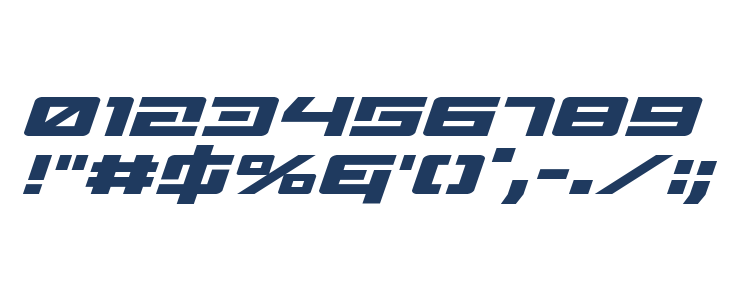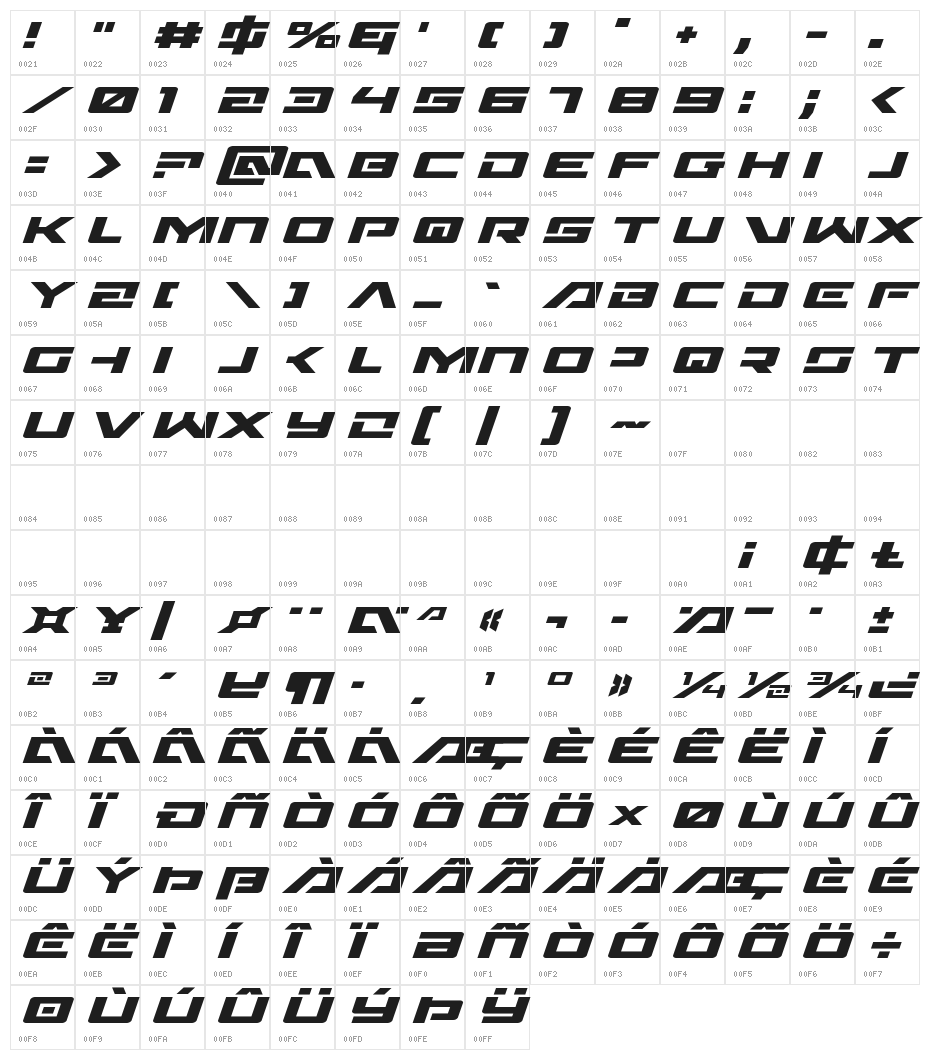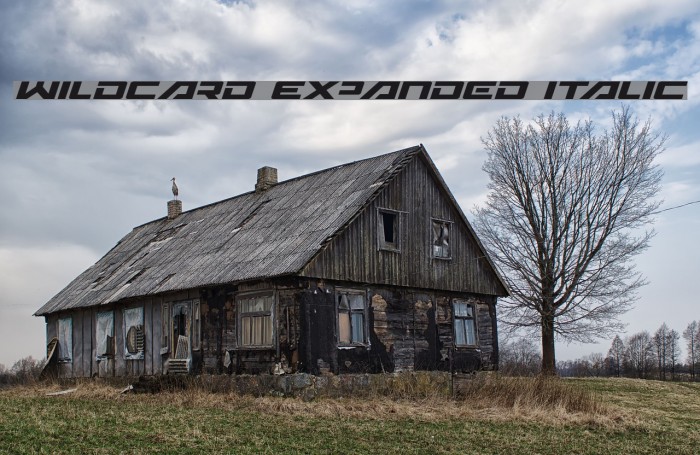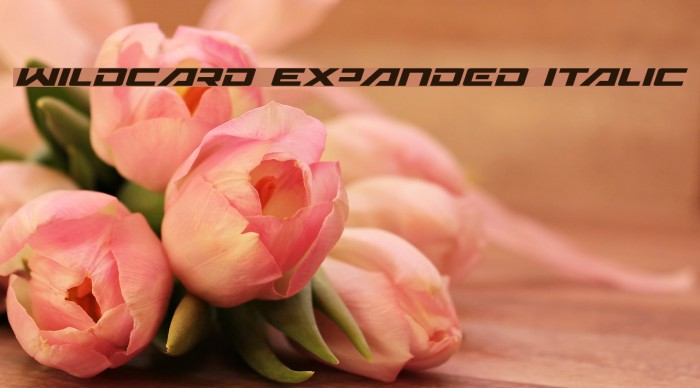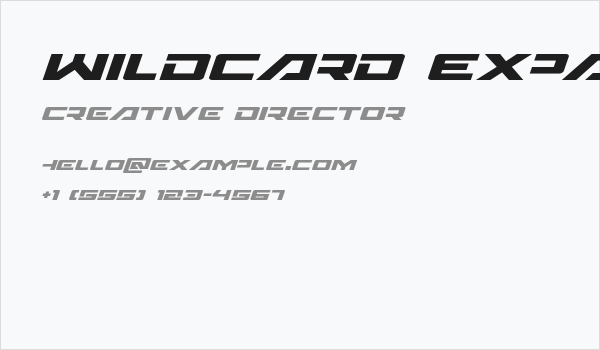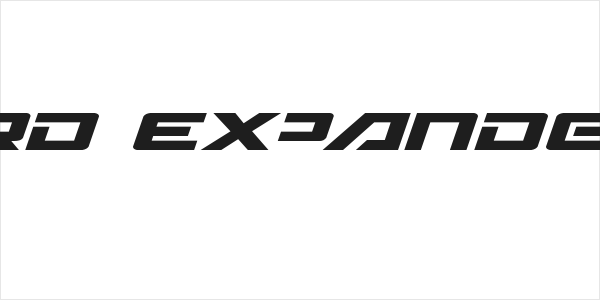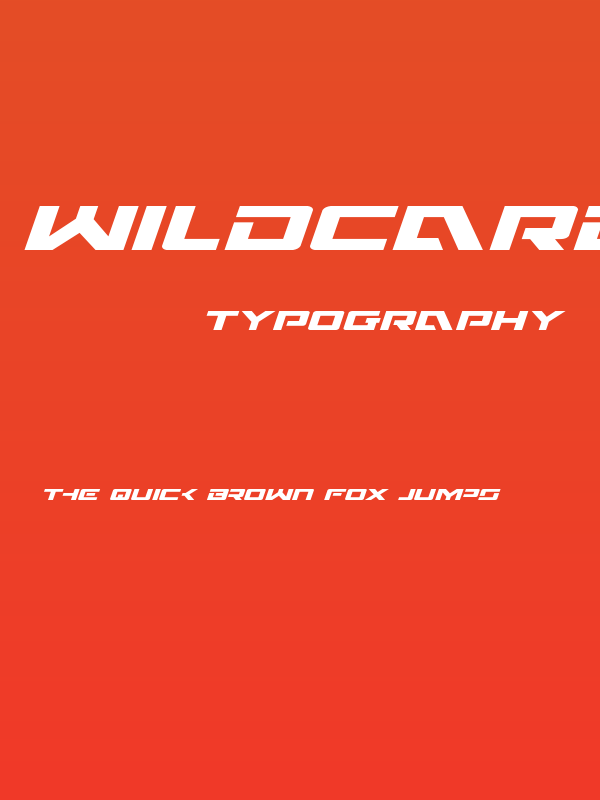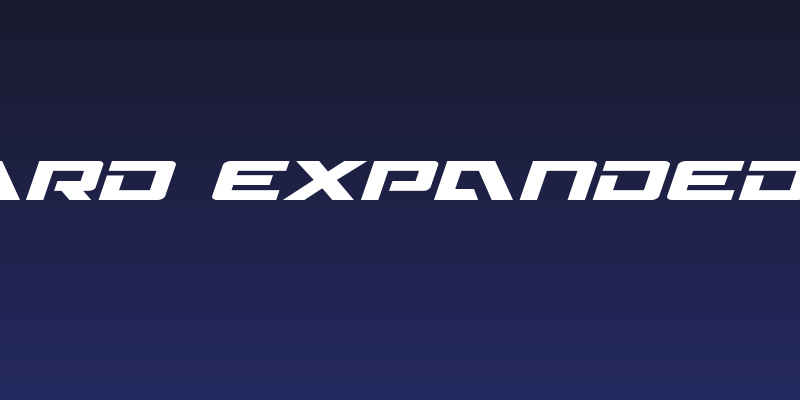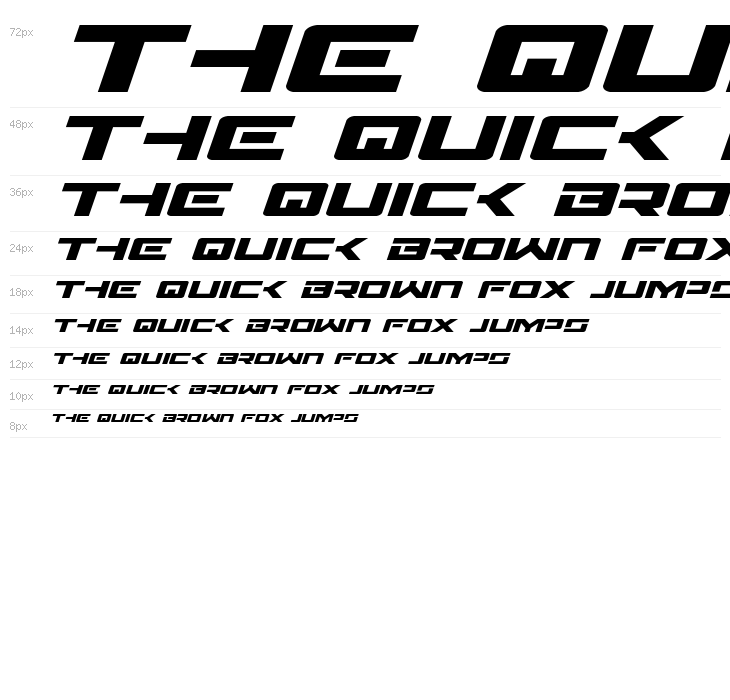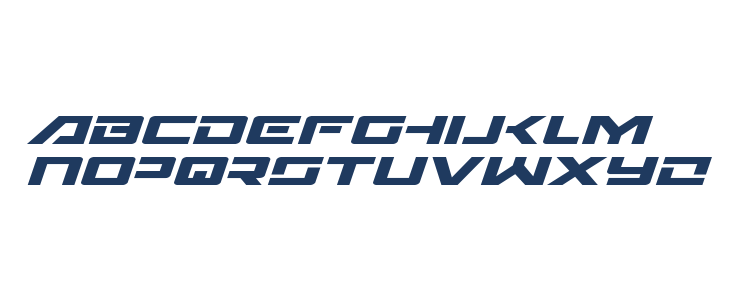
Wildcard Expanded Italic Font
Wildcard Expanded Italic Description
This font exhibits a bold, futuristic style with a distinctly angular and geometric design. The characters are expanded and italicized, giving them a dynamic and forward-leaning appearance. The uppercase letters are particularly striking, with sharp edges and a sense of movement. The lowercase letters maintain the same angular style, ensuring consistency throughout the typeface. Numbers and special characters are designed to match the overall aesthetic, making them suitable for a variety of uses. The font's expanded width and italic slant contribute to its modern and aggressive look, ideal for projects that require a strong visual impact.
| Proposed Projects | Ideal for sci-fi themed designs, video game titles, technology branding, and dynamic posters. |